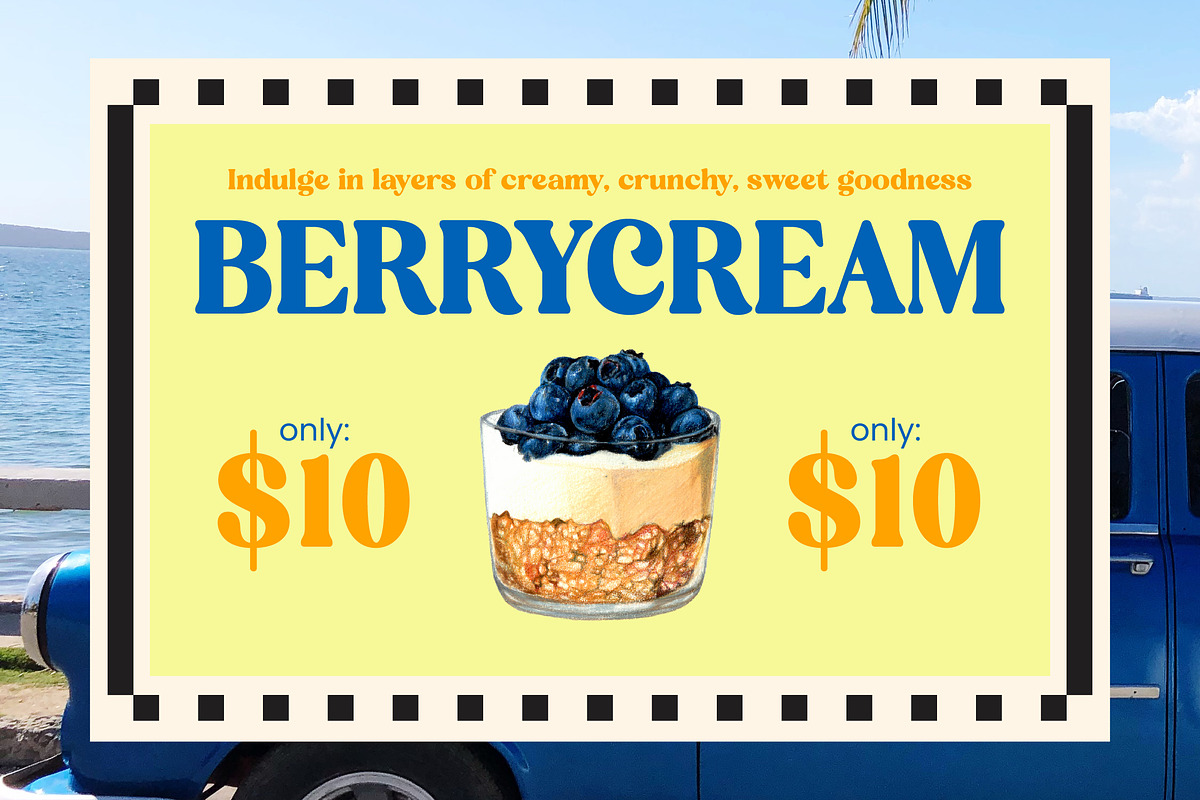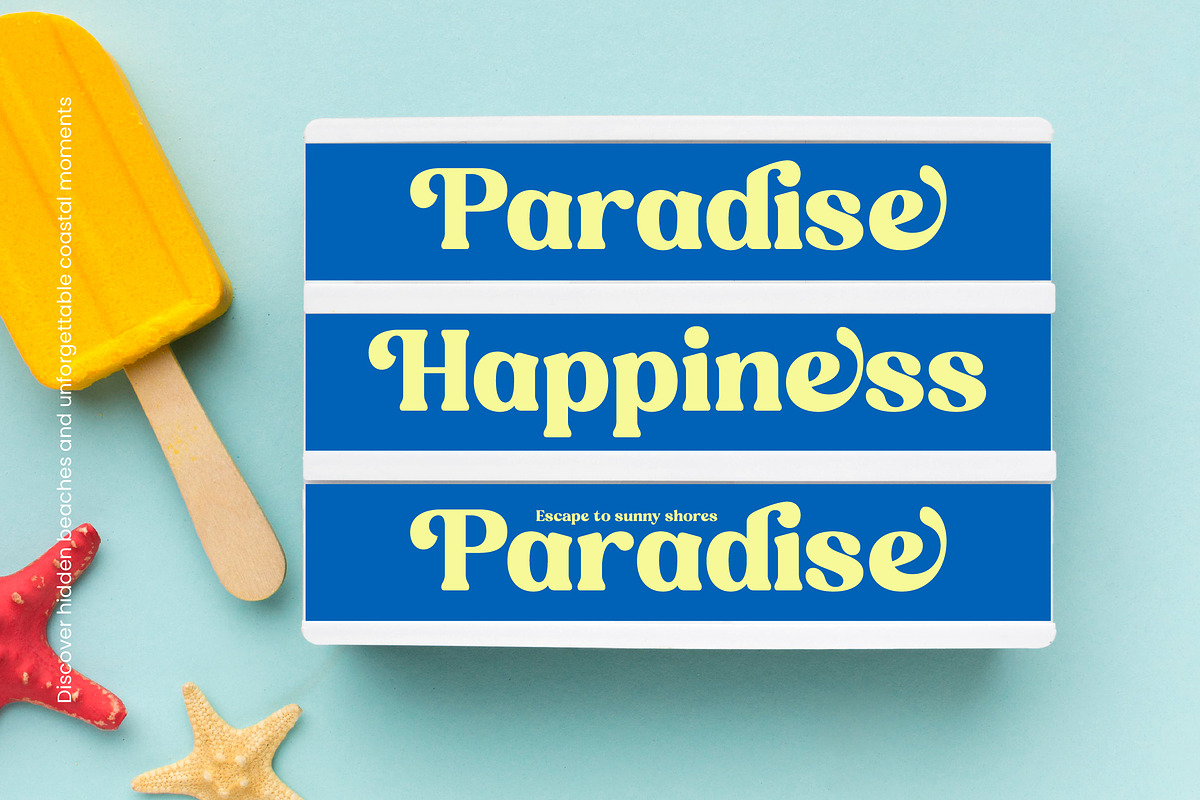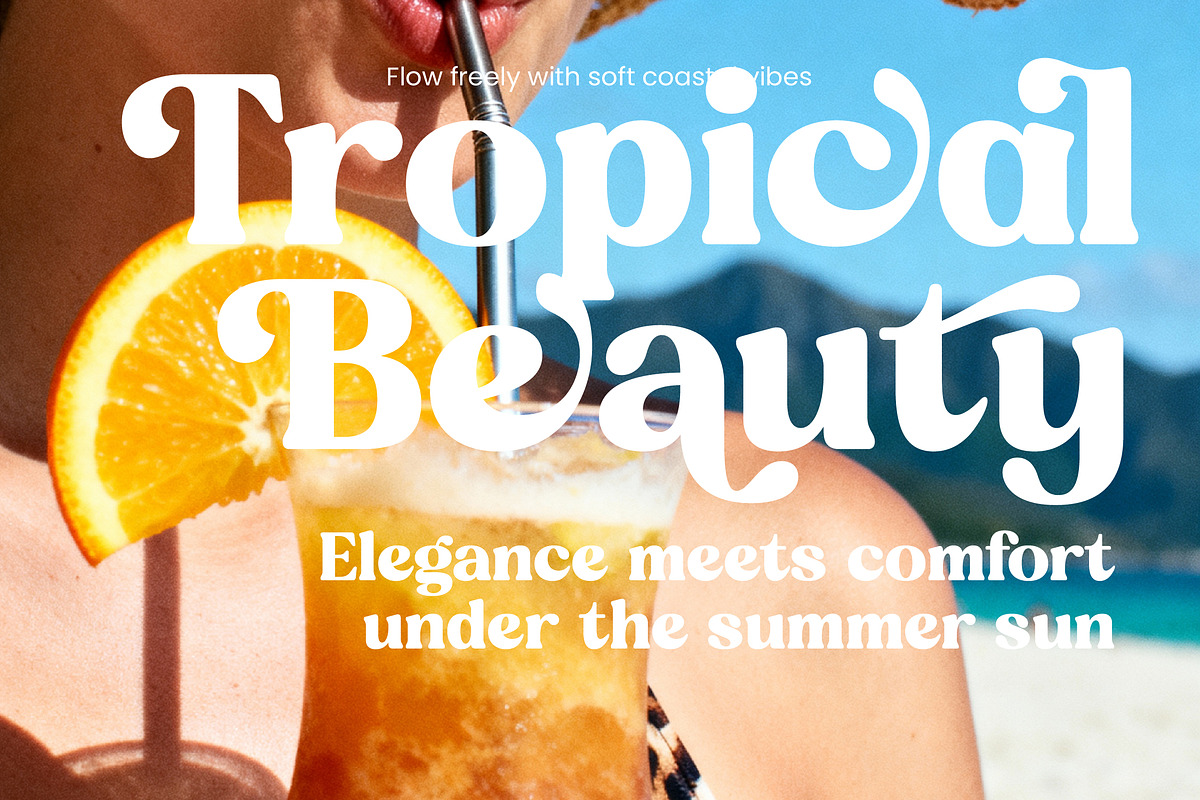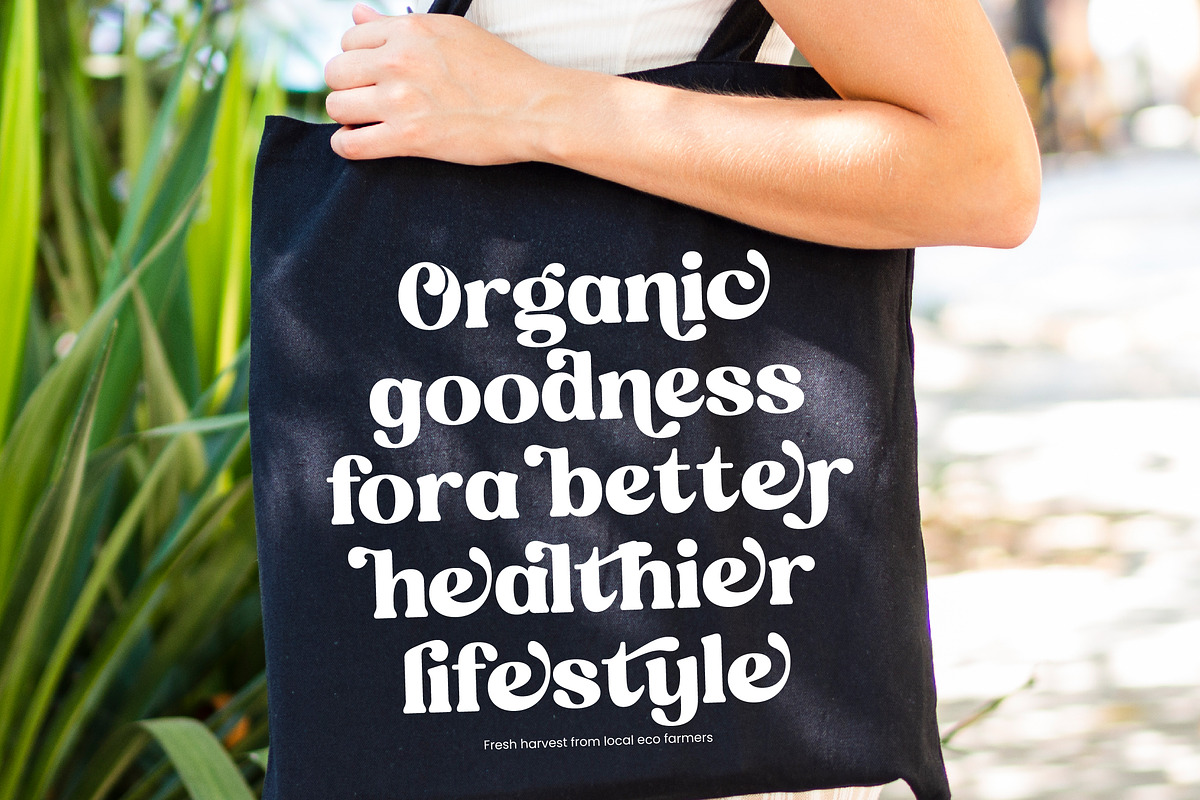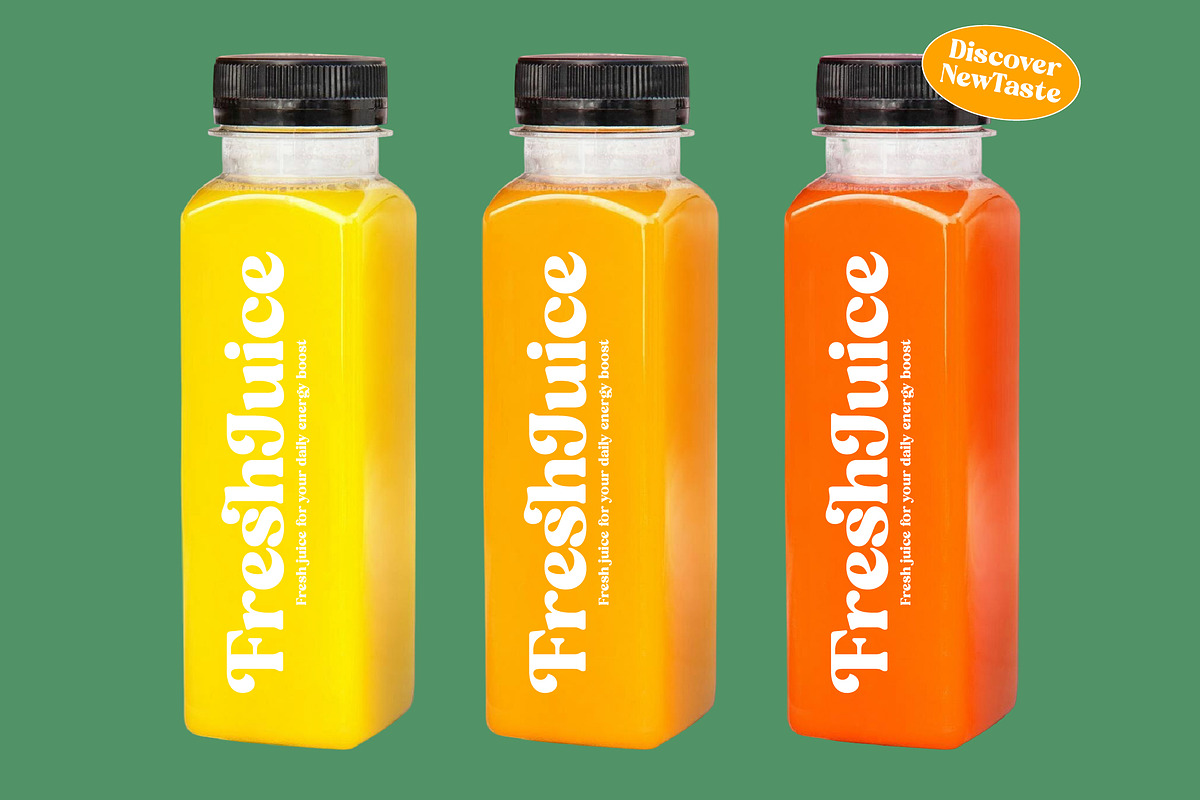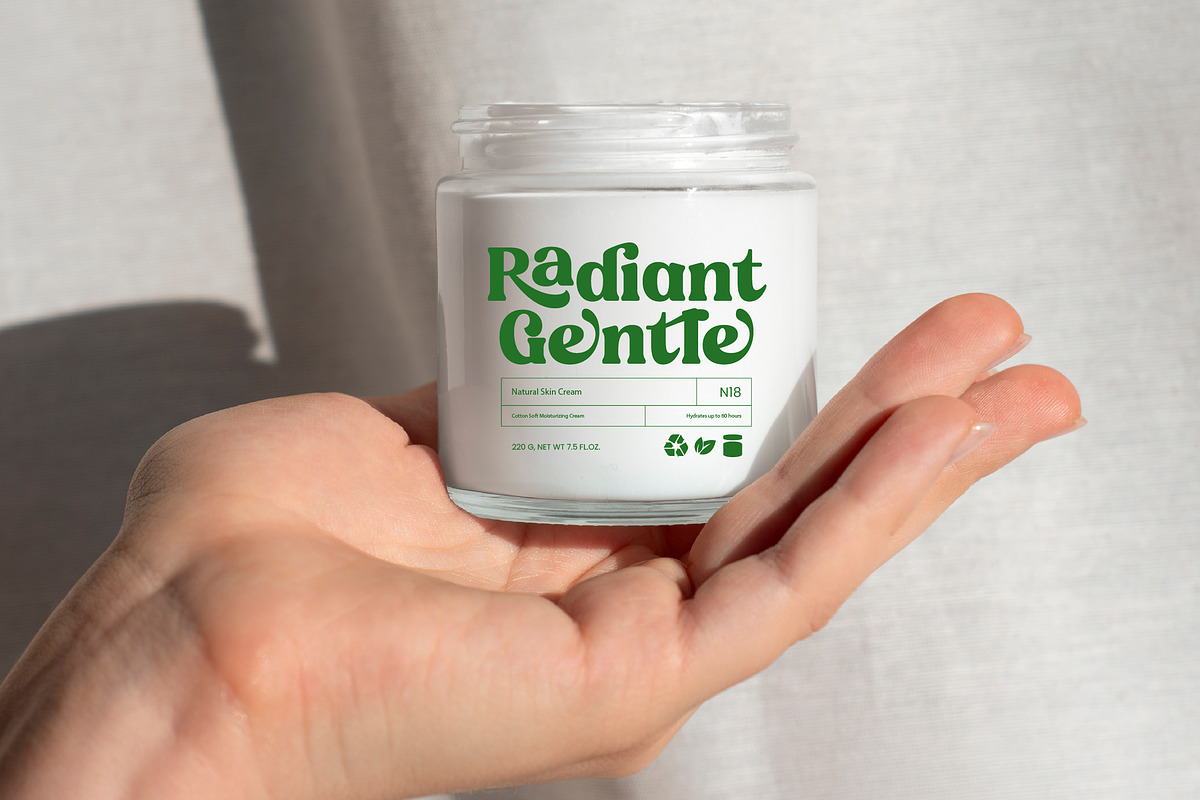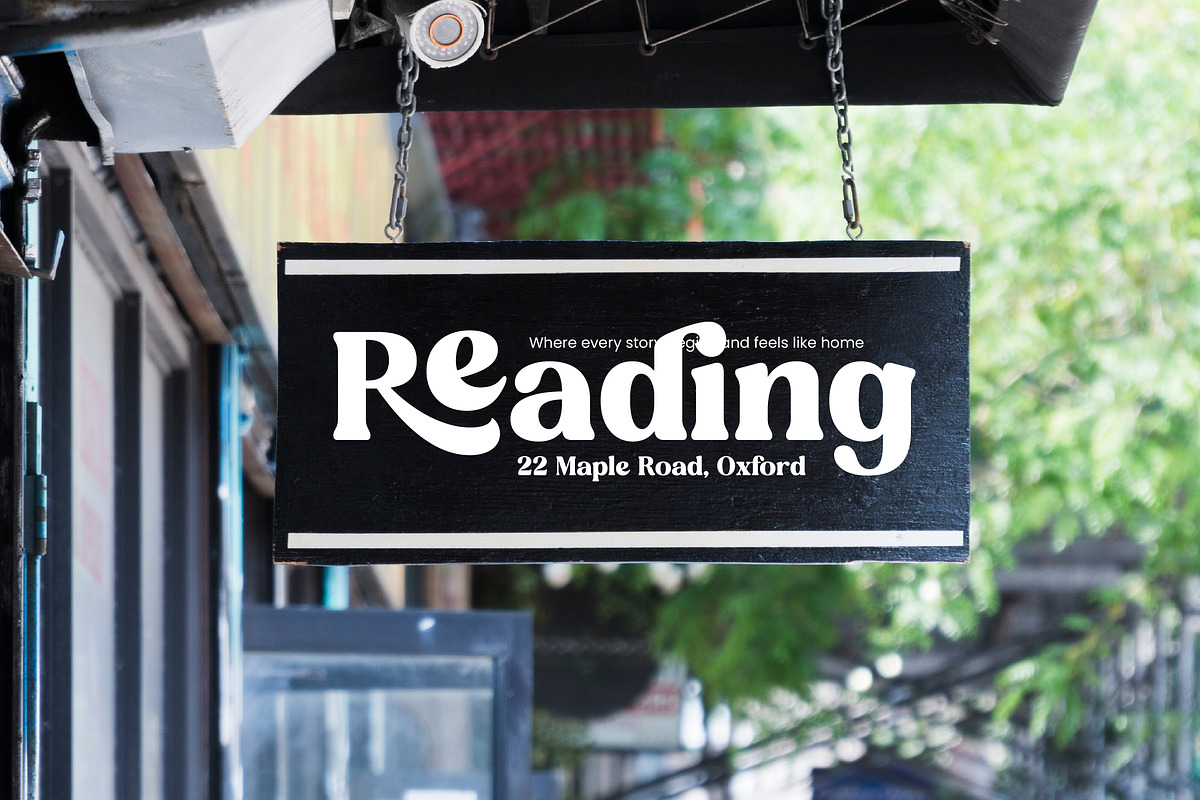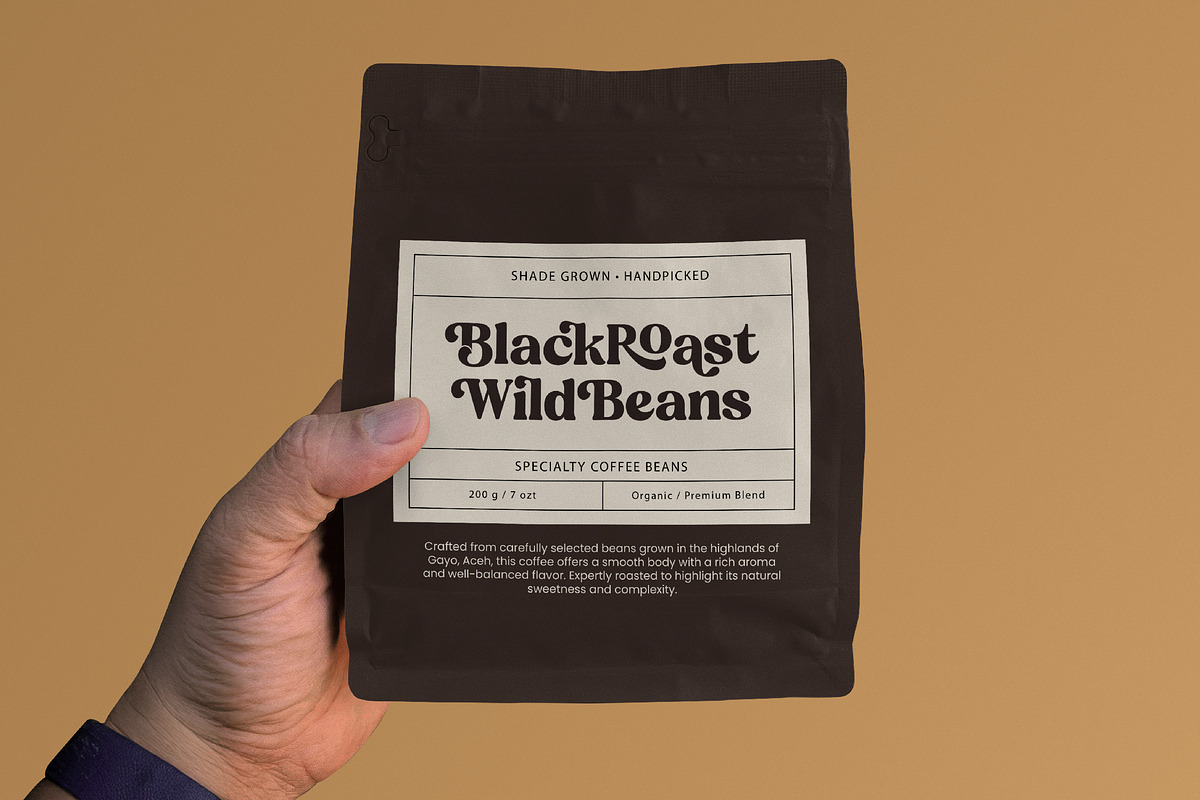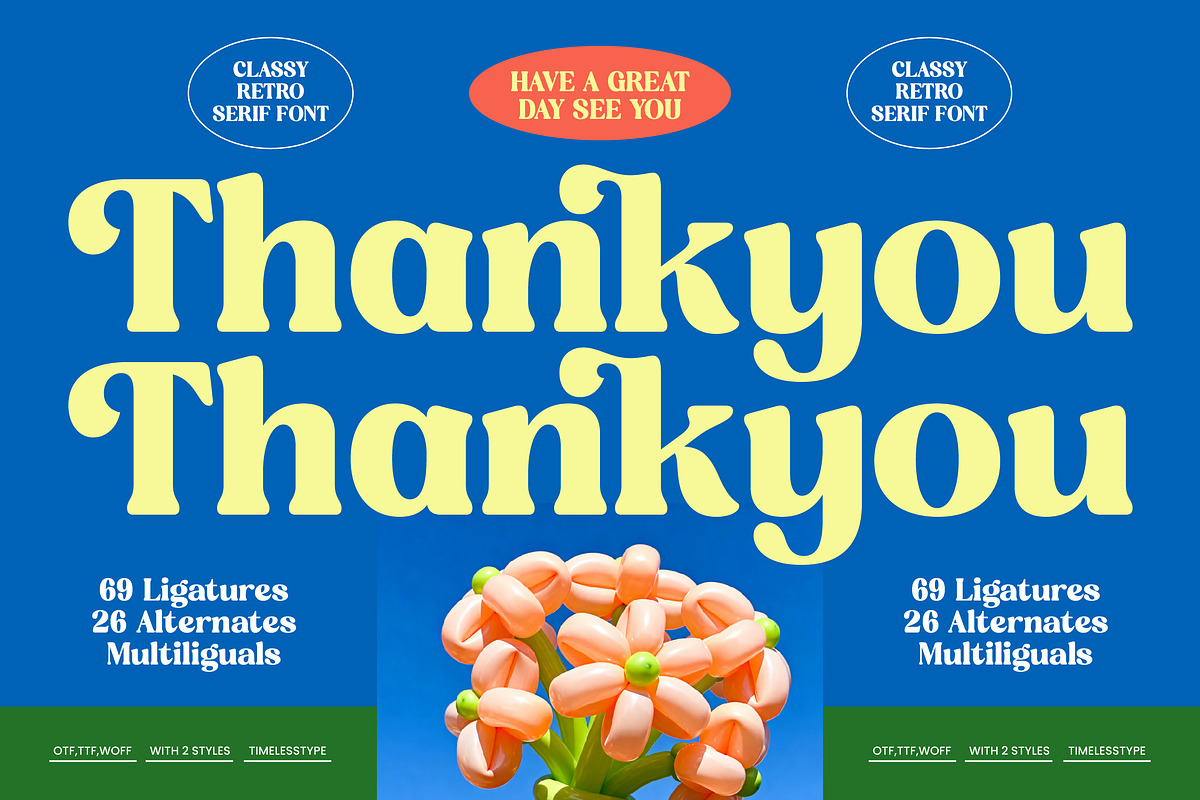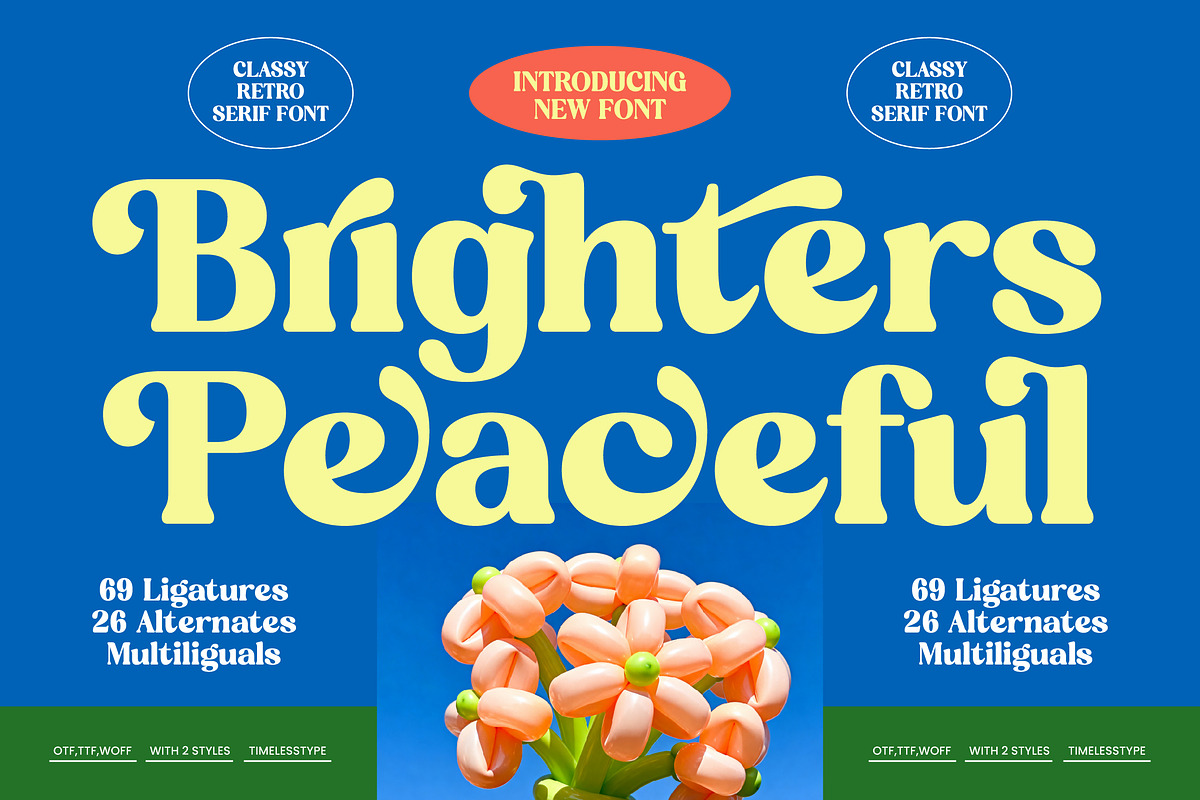
Brighters Peaceful Retro Serif
Brighters Peaceful - Classy Retro Serif Font , Elevate your design projects with a touch of nostalgic sophistication and timeless charm. Brighters Peaceful - Classy Retro Serif Font captures the essence of retro aesthetics while maintaining a clean, modern professional edge. Its thick, fluid strokes and graceful curves evoke a sense of 70s flair, making it an essential tool for designers seeking to infuse their work with vintage-inspired elegance and a high-contrast silhouette.
Precision meets playfulness in this exceptionally versatile typeface designed for high-impact visual storytelling. Brighters Peaceful - Classy Retro Serif Font is the perfect choice for luxury branding, high-end packaging, and editorial layouts that demand attention. Whether you are crafting a distinctive logo, lifestyle magazine headers, or bold social media graphics, this font provides the visual weight and artistic flair necessary to make your brand stand out in a competitive market.
Unlock global potential with advanced typographic features including 69 ligatures and 26 alternates that offer endless customization possibilities. With its extensive multilingual support, Brighters Peaceful - Classy Retro Serif Font adapts seamlessly across global markets, making it incredibly versatile for international projects. These professional features allow creative experts to maintain typographic consistency while exploring unique character combinations for a truly bespoke visual identity.
Redefine your creative identity with a font that masterfully balances expressive personality and corporate prestige. Brighters Peaceful - Classy Retro Serif Font is not just a typeface; it is a strategic asset for any designer looking to evoke warmth and luxury simultaneously. Incorporating this premium serif font into your design toolkit ensures your brand remains timeless and memorable, securing a sophisticated aesthetic that resonates across all print and digital platforms.